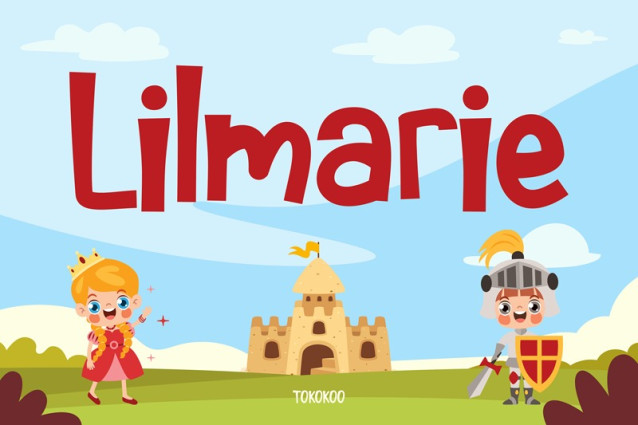
Lilmarie Font
Lilmarie Font brings cheerful energy to every design, and it immediately creates a warm visual impression. Moreover, its rounded letters look friendly and inviting, which helps children connect easily. The playful curves feel natural and soft, yet the shapes stay clear for smooth reading. Additionally, the hand-drawn style adds a lively charm that stands out in any creative layout. Each letter carries joyful personality, and this mood supports fun storytelling. Furthermore, the expressive forms give every word a brighter and more positive tone. Because of these qualities, Lilmarie fits beautifully in storybooks, posters, learning materials, and kids’ branding. It also adds a magical spark that makes simple designs look more imaginative. Even short captions gain extra emotion with this font.
What This Font Offers
Kids Font Lilmarie offers a mix of readability and playful character, and this combination makes it very useful. Moreover, the font supports projects that need warmth, creativity, and friendly visual appeal. Its expressive style increases emotional impact, and it helps stories feel more alive. Additionally, the shapes work well beside character illustrations or colorful backgrounds.
Furthermore, Lilmarie shines in children’s books, birthday invitations, school worksheets, and fantasy themes. It also performs well in promotional uses, such as product packaging, toy branding, shop banners, and digital ads. In addition, its handmade look creates a personal and comforting impression.